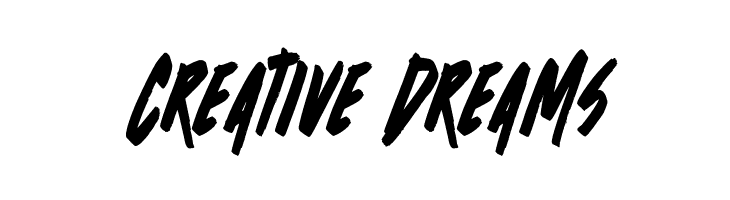
( Fonts by Inermedia Studio )
An elegant and flowing script font with decorative loops and swirls.
A bold, dynamic font with rounded strokes and a playful, energetic style.
A playful, hand-drawn font with irregular, dynamic strokes and a whimsical style.
( Fonts by Behind the Ink )
A whimsical handwritten script with tall, narrow letters and a casual style.
( Fonts by Pizzadude )
A playful, bold font with rounded, dynamic letters.
( Fonts by Letterday Studio )
A whimsical handwritten font with leaf motifs integrated into each character.
( Fonts by Letterday Studio )
A decorative handwritten font with leaf motifs integrated into each character.
A bold, geometric font with sharp angles and a futuristic style.
( Fonts by FreshtypeINK )
A playful and whimsical font with rounded, elongated letterforms.
( Fonts by Creative Sense )
A creative, cursive font with an artistic and flowing style.
( Fonts by Kateeng Ciu )
A playful, hand-drawn font with whimsical curves and dynamic strokes.
A bold, playful script font with a handwritten feel.
( Fonts by Gunawan )
A playful, cursive font with a whimsical, handwritten style.
( Fonts by www.blambot.com )
A playful, bold font with a hand-drawn, casual style.
( Fonts by www.blambot.com )
A bold, playful font with a hand-drawn, whimsical style.
A dynamic and flowing script font with elegant cursive letterforms.
( Fonts by Lontong Lodeh )
A bold, geometric font with a modern and structured design.
A playful, handwritten font with tall, narrow letters and rounded edges.
A modern sans-serif font with clean lines and balanced proportions.
A modern serif typeface with clean lines and balanced proportions.
A bold, modern font with thick strokes and strong presence.
A bold, italic font with a dynamic and modern style.
A bold, modern sans-serif font with clean lines and strong presence.
A bold and italicized font with a modern and dynamic style.
A bold, modern sans-serif font with strong, uniform strokes.
( Fonts by Lafontype - Anugrah Pasau - Personal-use only. For commercial use please contact owner. )
A bold, italic font with a modern and dynamic style.
A modern, italic font with smooth curves and consistent stroke width.
A modern, light sans-serif font with clean lines and low contrast.